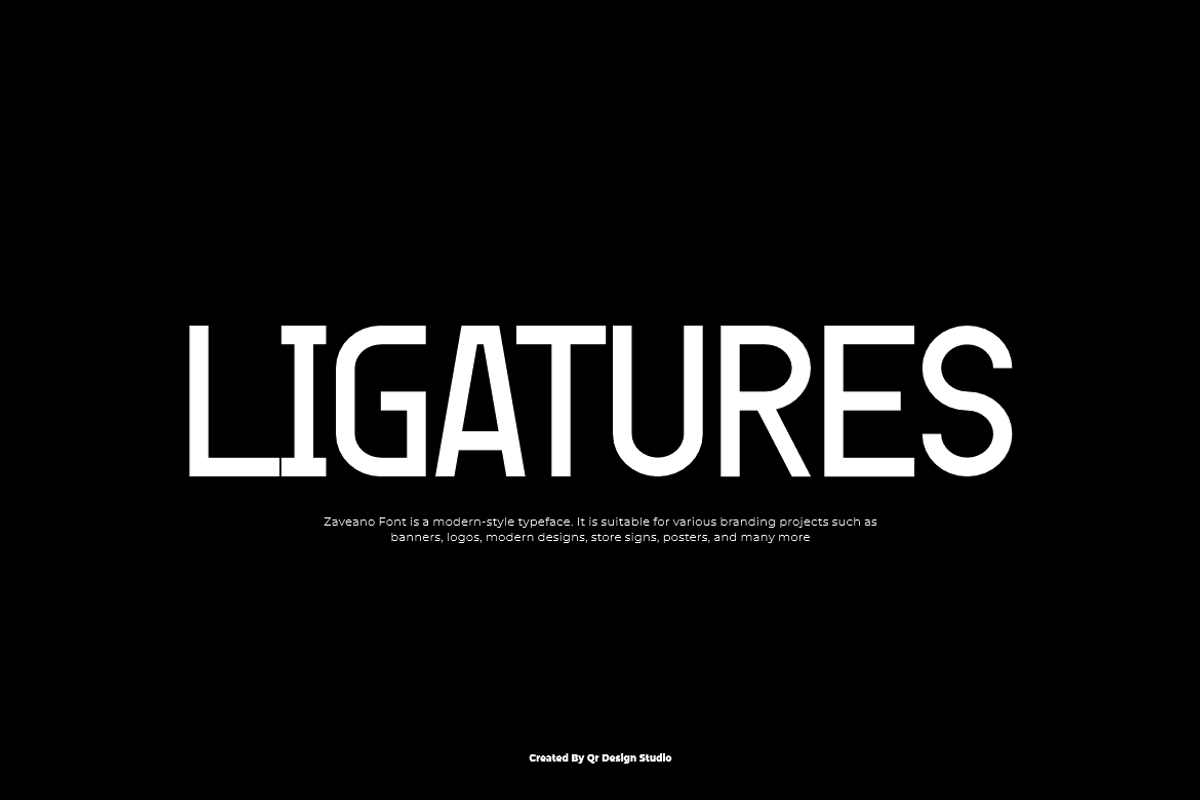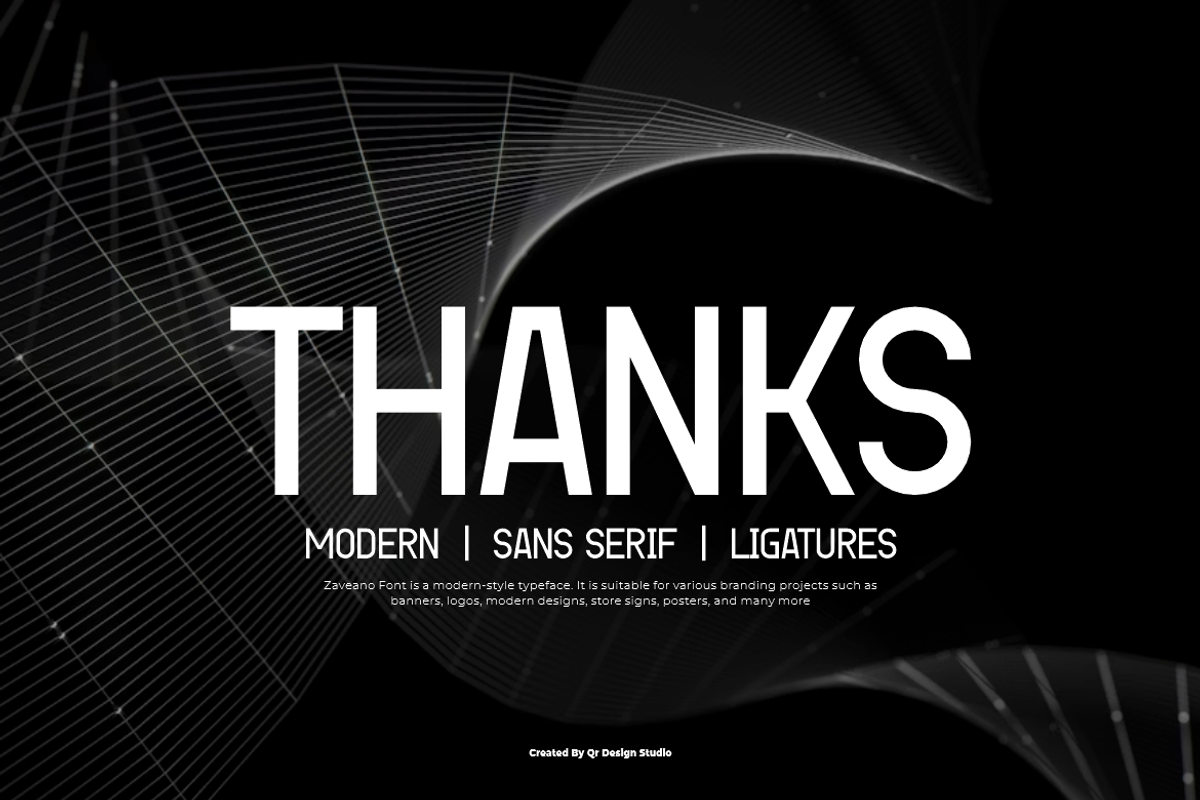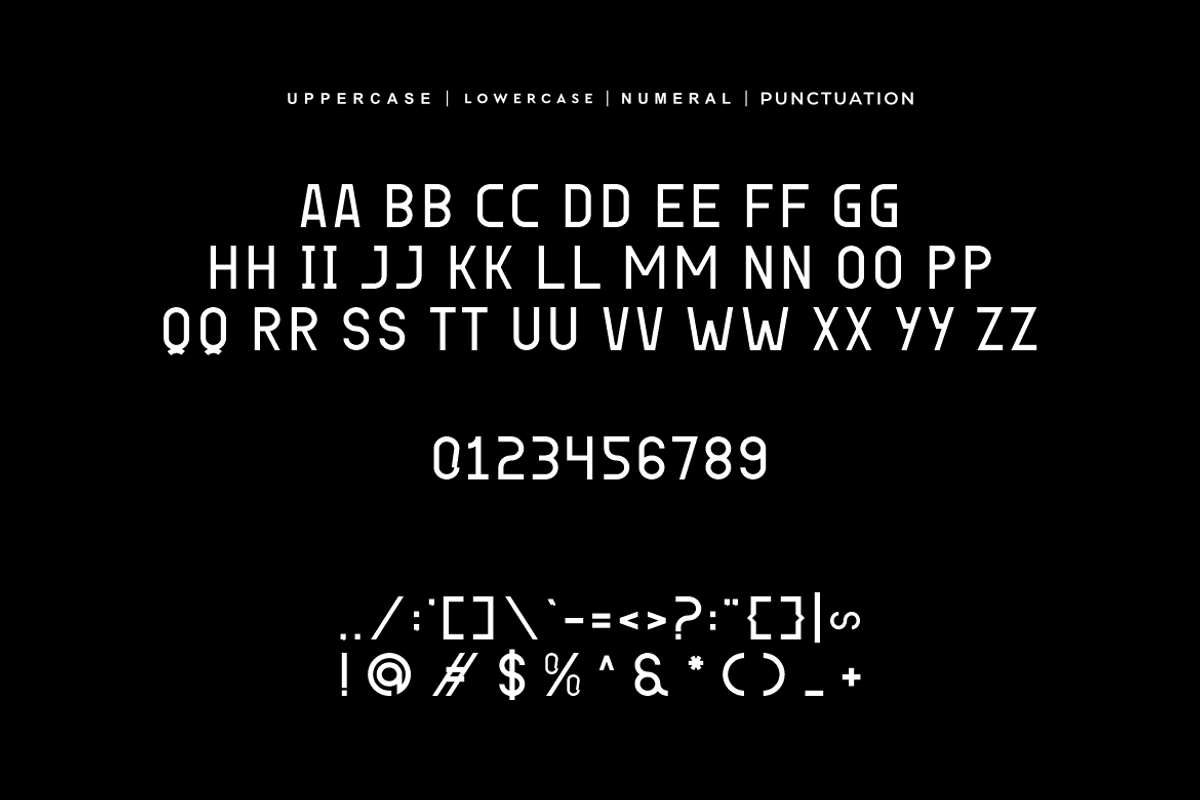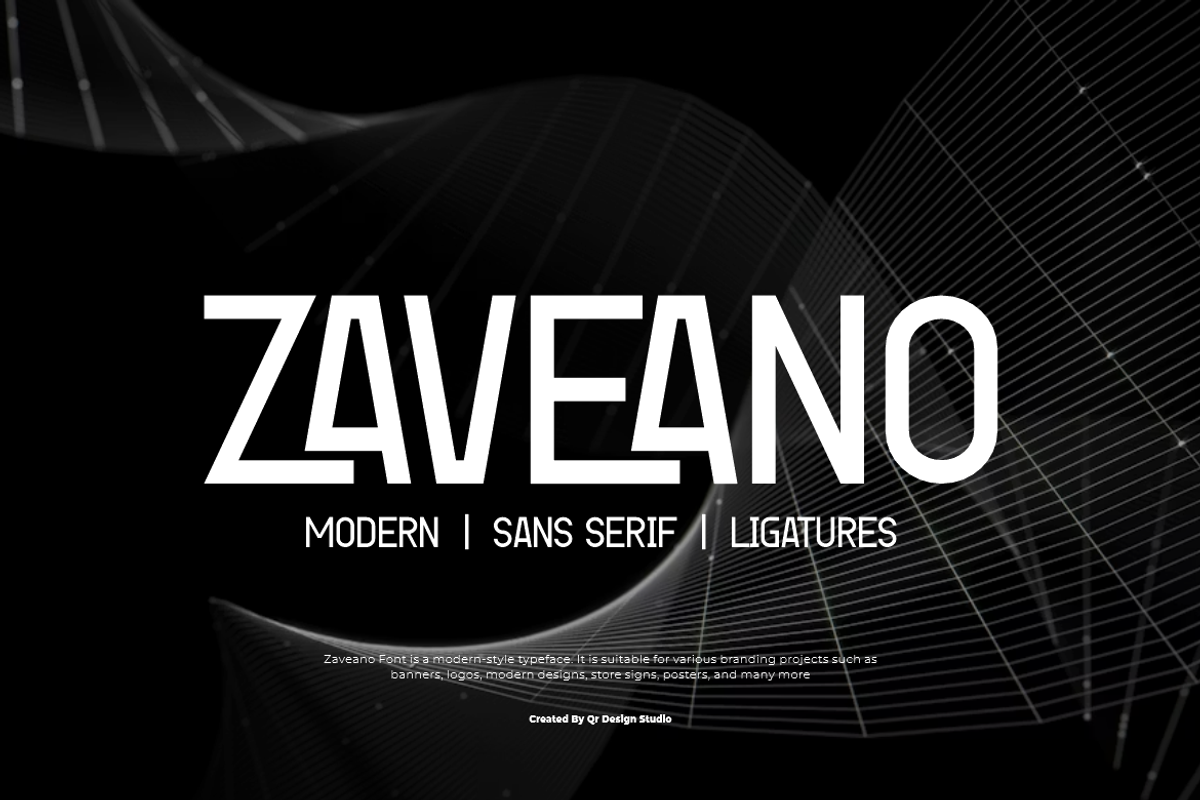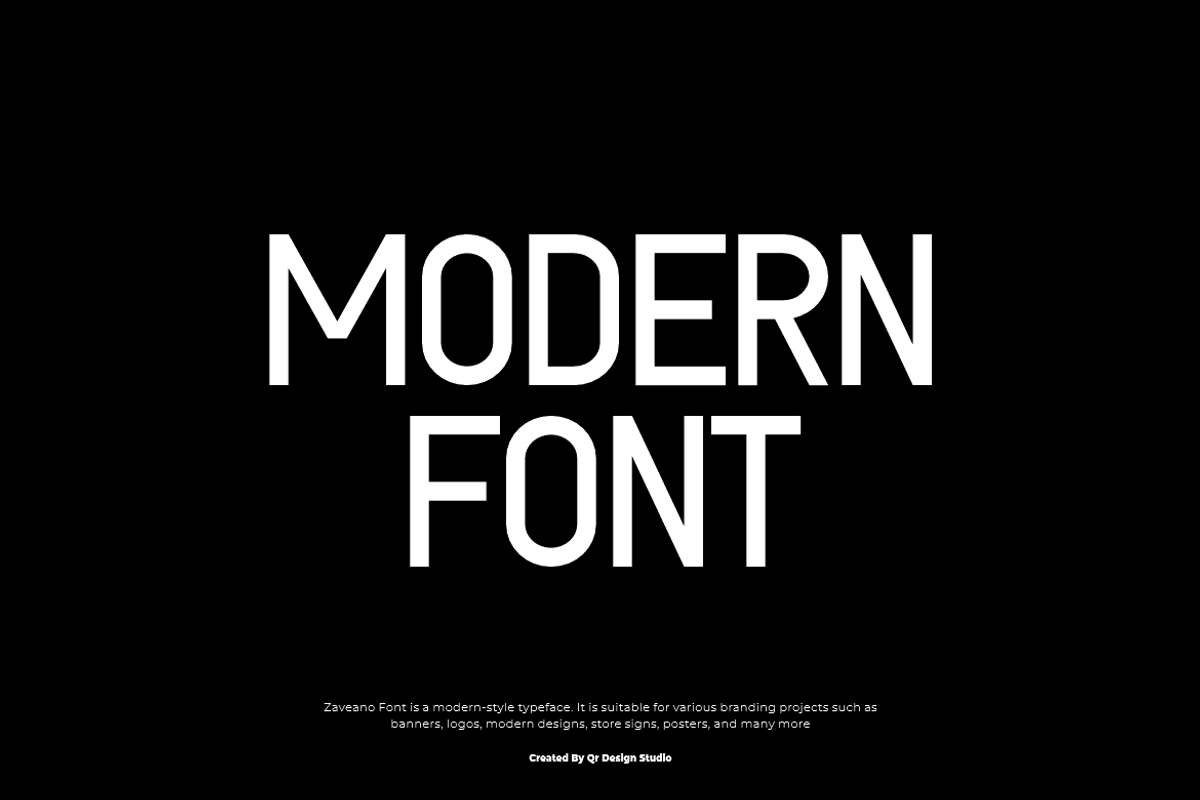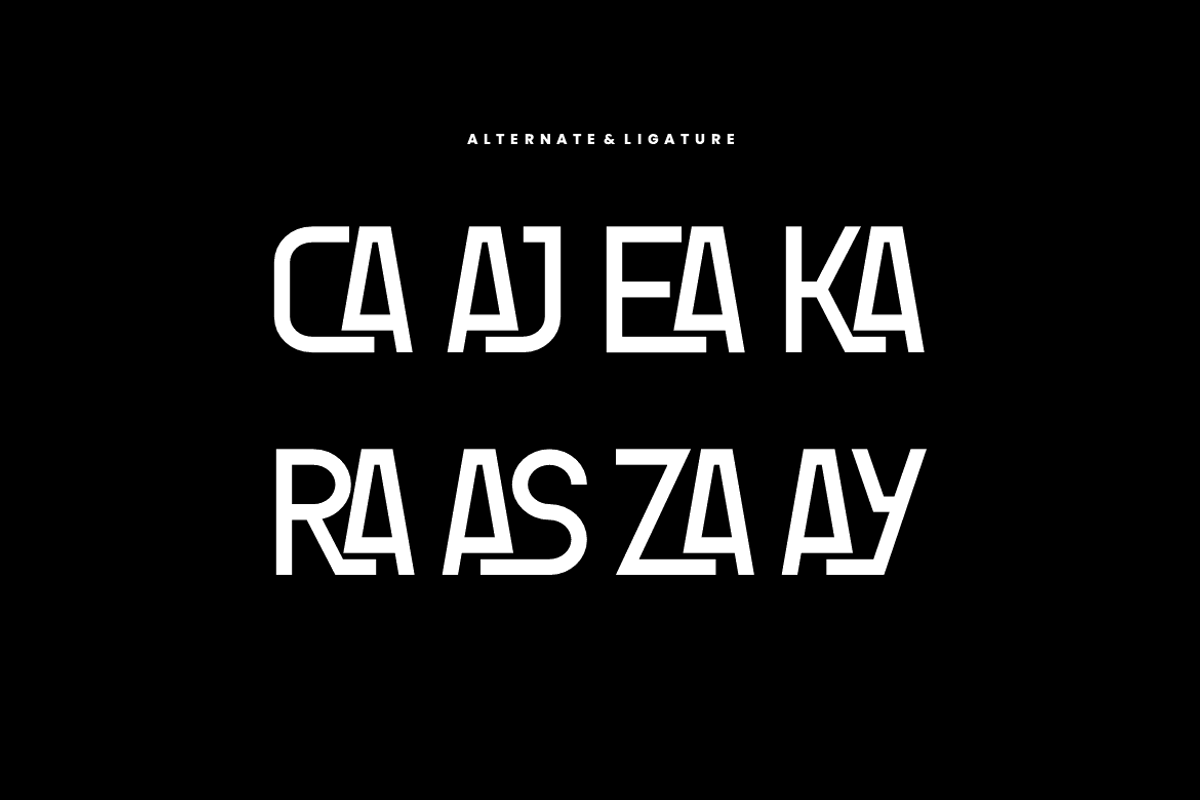
Zaveano - Ligatures Font
Zaveano Font is a sans serif and authentic display typeface. It’s perfect for various branding projects such as logos, modern designs, and more. This font stands out beautifully in a wide range of contexts.